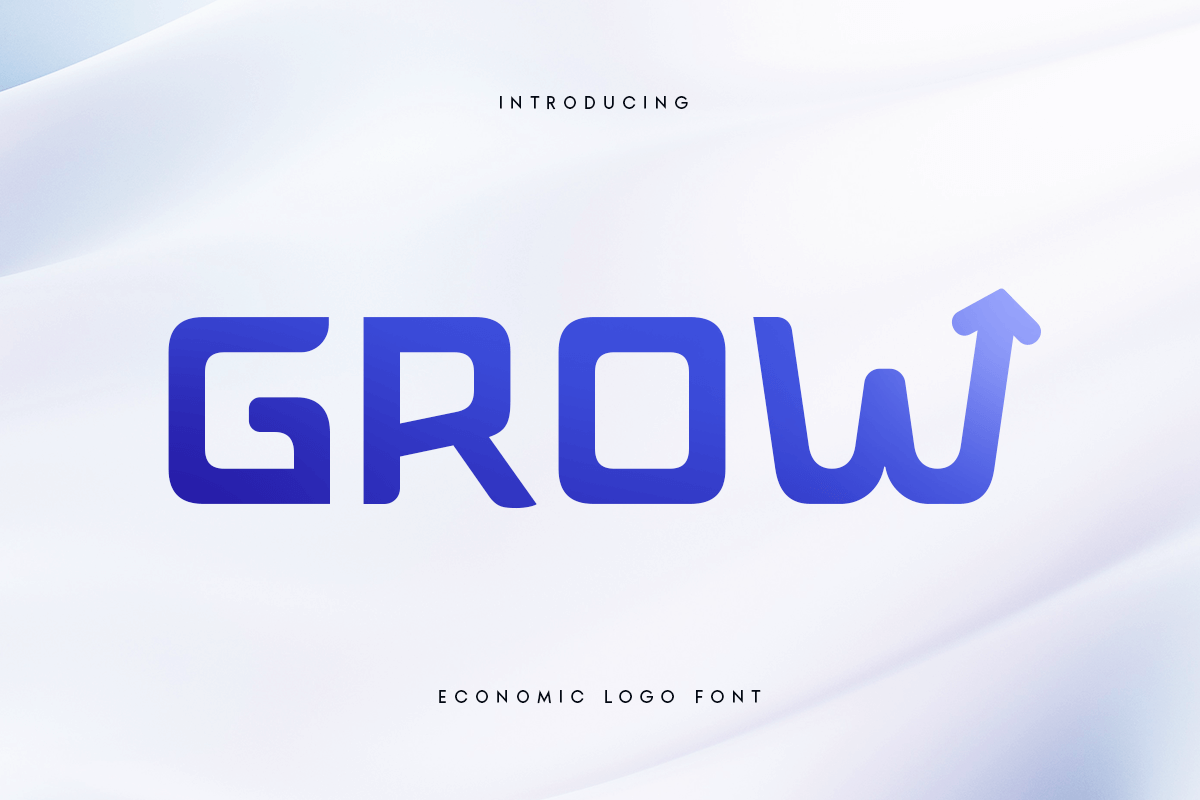
Grow
-Economic Logo FontGrow is a font created with the modern business landscape in mind. Its clean and professional design makes it perfect for companies looking to make a strong, reliable impression. Whether you're building a brand identity, creating a logo, or designing corporate materials, Grow provides the right balance of elegance and functionality.
Crafted to reflect economic sensibility, this font is both stylish and practical. Its versatility ensures that it can adapt to a variety of business applications, from digital presentations to printed materials. Grow is not just a font; it's a tool for growth, designed to support businesses in conveying trust and innovation.
With its unique alternative characters and modern feel, Grow helps your business stand out while maintaining a polished and professional image. It’s ideal for companies that value both style and substance in their branding efforts.